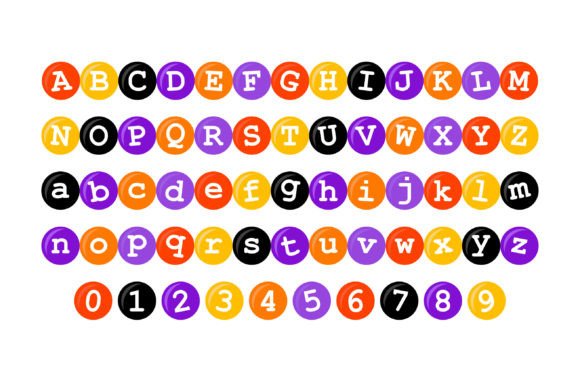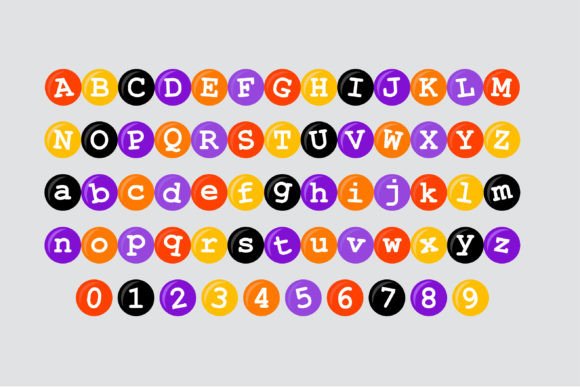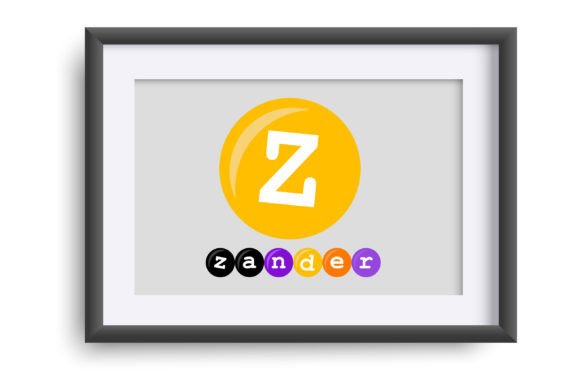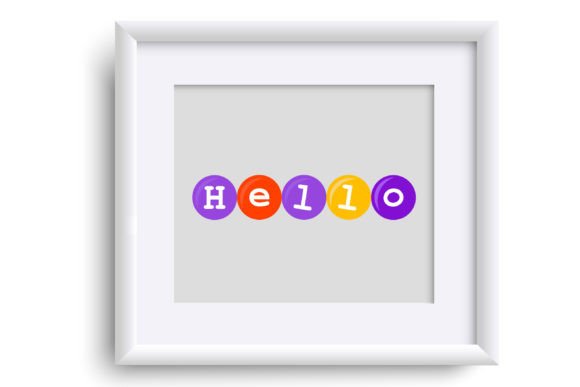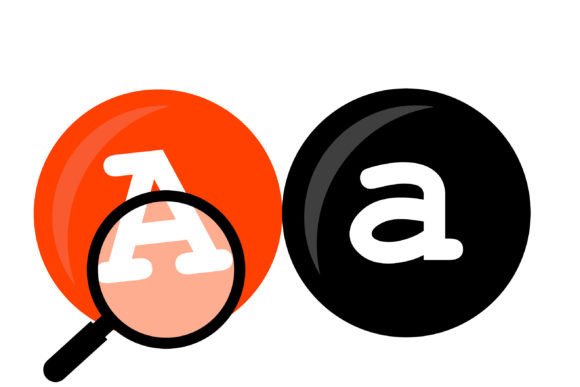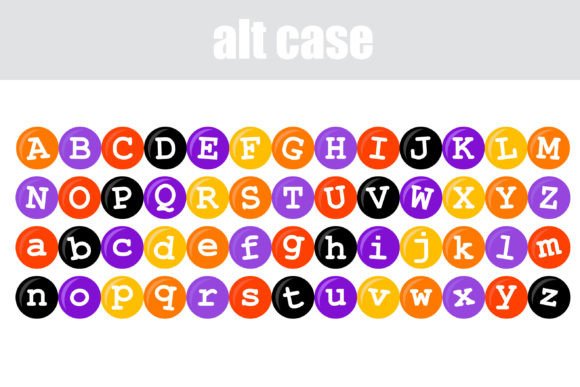
Introduction to Halloween M’s Font
As a designer, have you ever found yourself stuck in a creative rut, yearning for a design resource that sparks your imagination and adds a touch of magic to your project? That’s exactly what happens when you stumble upon the perfect font – and we’re excited to introduce you to the enchanting Halloween M’s Font.
This full-color font is a masterclass in creativity, featuring a palette of Halloween-inspired colors that are reminiscent of candy-coated chocolates. With its alt case offering additional colors, you’ll have endless possibilities to experiment with and add a personal touch to your designs. Whether you’re working on a creative project that requires a dash of whimsy or simply want to add some visual interest to your text, the Halloween M’s Font is the perfect companion.
Key Features of Halloween M’s Font
- Unique and spooky design for creative projects, ideal for Halloween-themed designs
- Includes a range of M’s with different designs and decorations, perfect for creating unique and creative typography
- Perfect for designers, artists, and crafters working on Halloween-themed projects, scrapbooking, or card making
Honest Review: Halloween M’s Font
As a designer, I’m always on the lookout for unique and creative design resources to enhance my projects. Recently, I stumbled upon the Halloween M’s Font, which caught my attention with its spooky charm.
✨ I was impressed with the high quality and clear definition of the font, making it perfect for creating spooky graphics and invitations for my Halloween-themed creative project. The transparent background option allows for flexibility in design and makes it easy to customize.
- Unique and creative design aesthetic
- High quality and clear definition
- Theme-specific design aesthetic
Overall, I think the Halloween M’s Font is a great resource for designers who are working on Halloween-themed projects. While it may have some limitations, its unique design aesthetic and high quality make it a great addition to any design resource library.
Halloween M’s Font
Common Use Cases for Halloween M’s Font
Halloween M’s Font is perfect for creating invitations, party decorations, and other spooky-themed materials. It’s also great for adding a touch of Halloween spirit to your social media graphics and blog posts.